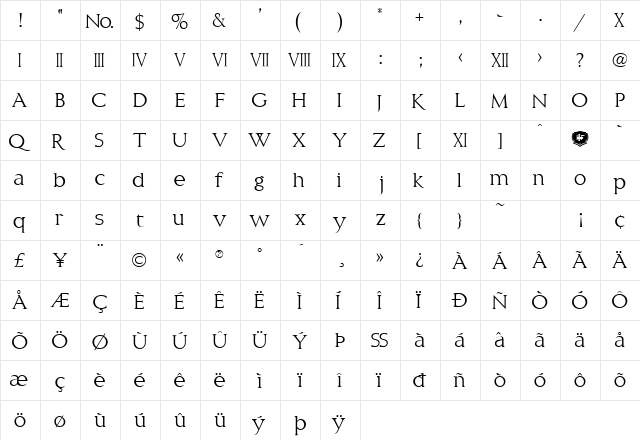
LHF Classic Roman ALT Regular
| Foundry | Letterhead Fonts |
| Designer | John Studden |
Design Context for LHF Classic Roman ALT Typeface
LHF Classic Roman ALT has the warm character of retro typography — evoking diners, record sleeves, and the golden age of print advertising.
Perfect for vintage-inspired branding, retro packaging, nostalgia campaigns, and period-accurate editorial design.
Font Pairing: Combine LHF Classic Roman ALT with a simple slab or neutral sans — period-accurate companions reinforce the vintage feel without competing for attention.
Pro Tip: Use LHF Classic Roman ALT for headlines and pull quotes rather than body copy — its personality is best appreciated in short, focused bursts.